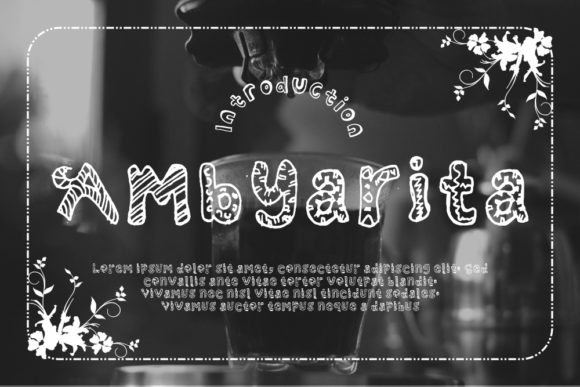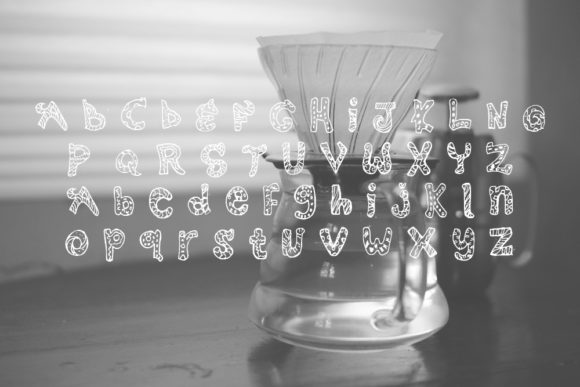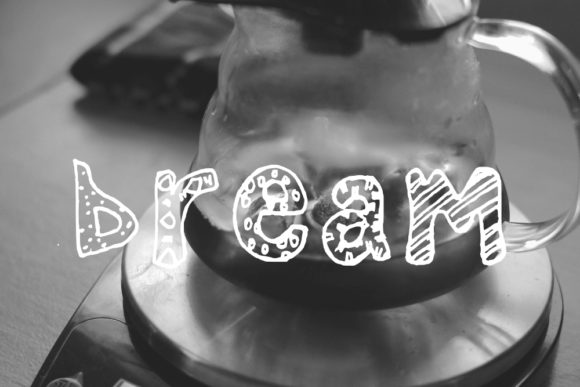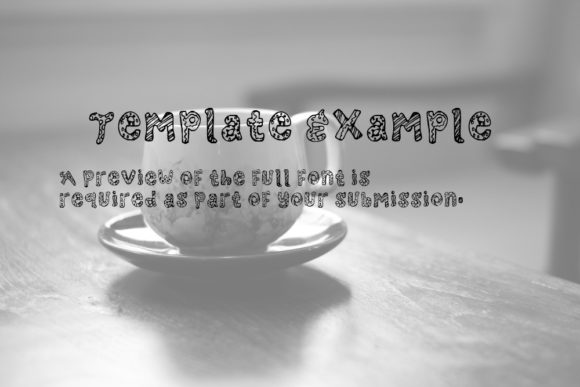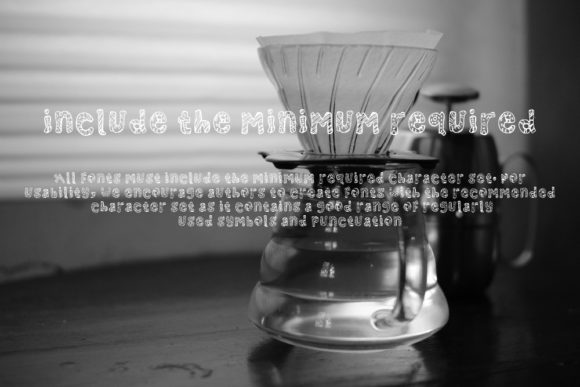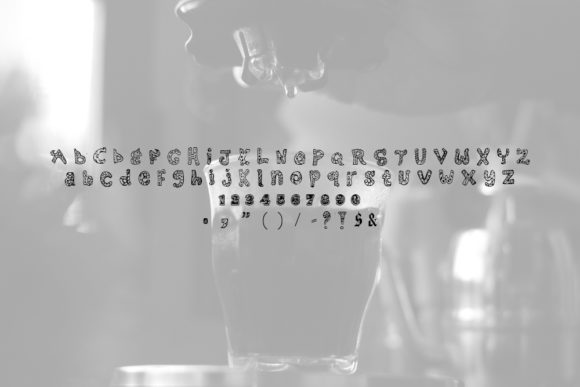
Ambyarita Font
About Ambyarita Font
Ambyarita sounds like a delightful and versatile dingbats font that can add a sweet and friendly touch to your designs. With its natural and unique style, this font offers a range of possibilities for your creative projects. Here are some ways you can use Ambyarita to enhance your designs:
1. Invitations and Cards: Create charming and heartfelt invitations or greeting cards using Ambyarita. The font’s sweet and friendly style will add a warm and inviting feel to your designs. Use the dingbats as decorative elements or as part of the overall design to make your invitations or cards truly special.
2. Personal Branding: Use Ambyarita to add a unique touch to your personal branding materials. Whether it’s for your business cards, website, or social media graphics, the font’s natural and friendly style can help convey a warm and approachable personality for your personal brand.
3. Social Media Posts: Make your social media posts stand out with Ambyarita. The font’s unique style can add a touch of personality and authenticity to your captions, quotes, or headlines. Use the dingbats as playful icons or decorative elements to enhance your visual content.
4. Handmade Crafts: Incorporate Ambyarita into your handmade crafts for an extra dose of charm. Whether you’re creating custom labels, gift tags, or personalized items, the font’s sweet and friendly style can add a handmade and heartfelt touch to your creations.
5. Blog Design: Enhance your blog design with Ambyarita. Use the font for headings, sidebar titles, or as part of your logo to give your blog a unique and memorable look. The natural and unique style of the font can help create a cohesive and inviting aesthetic for your readers.
6. Children’s Projects: Ambyarita is a great choice for children’s projects. Use the font to create educational materials, storybooks, or activity sheets. The sweet and friendly style of the font will appeal to young audiences and add a playful and engaging element to your designs.
Remember to experiment with different sizes, colors, and combinations of Ambyarita with other fonts to create visually captivating designs. Let the font’s natural and unique style inspire your creativity and bring a touch of sweetness to your projects. The only limit is your imagination!